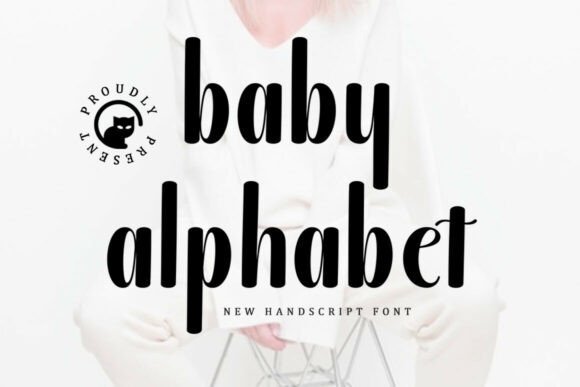
Give Your Designs a Handcrafted Touch with the Baby Alphabet Font
As a designer, have you ever found yourself staring at a blank page, searching for the perfect font to capture the essence of your project? You know, that magical moment when everything comes together, and your design starts to feel truly alive. For me, it’s when I get to combine my love of typography with the joy of creating something special for kids. That’s exactly what the Baby Alphabet Font is all about – bringing a delightful blend of playful charm and contemporary style to your designs.
This fresh, high-impact handscript font is a game-changer for designers looking to add a personal touch to their work. With its ultra-tall, elongated vertical stems paired with dense, plump curves, the Baby Alphabet Font is highly readable and packed with friendly visual weight. Whether you’re working on trendy children’s apparel, playful nursery wall art, or modern baby shower invitations, this font is the perfect choice to give your titles a sweet, handcrafted presence that feels both whimsical and beautifully structured.
Baby Alphabet Font Key Features
- Font Style: A playful, cursive alphabet font designed for baby-related applications.
- Unique Characteristics: The font features a whimsical, handwritten style with exaggerated curves and flourishes, making it perfect for baby-themed designs.
Design Review: Baby Alphabet Font
Overall, I think the Baby Alphabet Font is a cute and playful font, perfect for any nursery or kids’ design project. Here are some of its strengths:
- ✨ The font is incredibly easy to read, even for young children, due to its clear and simple design.
- ✨ The font is highly customizable, allowing you to adjust the size, color, and style to fit your design needs.
- ✨ The font is also highly versatile, suitable for a wide range of design projects, from posters to t-shirts.
- ⚠️ The font may not be suitable for more formal or professional design projects, due to its playful and childish nature.
- ⚠️ The font may not be as legible at very small sizes, so it’s best to use it at larger font sizes for maximum readability.
Overall, I think the Baby Alphabet Font is a great choice for design projects that require a playful and fun font. It’s easy to use, highly customizable, and suitable for a wide range of projects. However, it may not be the best choice for more formal or professional projects.
The Baby Alphabet Font is perfect for creating adorable and playful designs, such as:
- Baby shower invitations and decorations
- Children’s party banners and signs
- Infant and toddler-themed stationery and graphics
Alternatives to Baby Alphabet Font
Great Vibes is a modern, elegant script font that is perfect for designing kid’s products, such as nursery decor, children’s books, and apparel. It is more sophisticated and refined compared to Baby Alphabet Font, making it suitable for a wider range of designs.
Pacifico is a beautiful, cursive script font that is ideal for creating a relaxed, beachy vibe. It is a great alternative to Baby Alphabet Font for designing products that require a laid-back, casual feel. Pacifico is more stylized and has a unique character compared to Baby Alphabet Font.
Carolyna Pro is a modern, sans-serif font with a touch of elegance. It is perfect for designing products that require a clean, sophisticated look, such as baby clothing, nursery decor, and kids’ accessories. Carolyna Pro is more versatile and has a wider range of uses compared to Baby Alphabet Font.